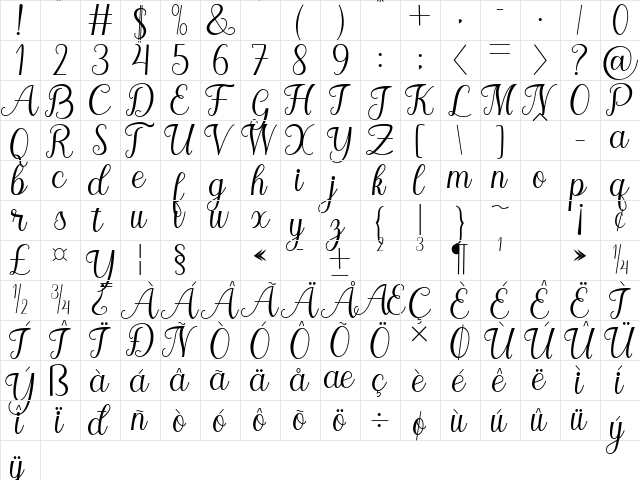
Marleigh Regular
Design Context for Marleigh Typeface
Marleigh takes a measured approach to typography — its balanced proportions and neutral character make it a reliable workhorse for both digital and print work.